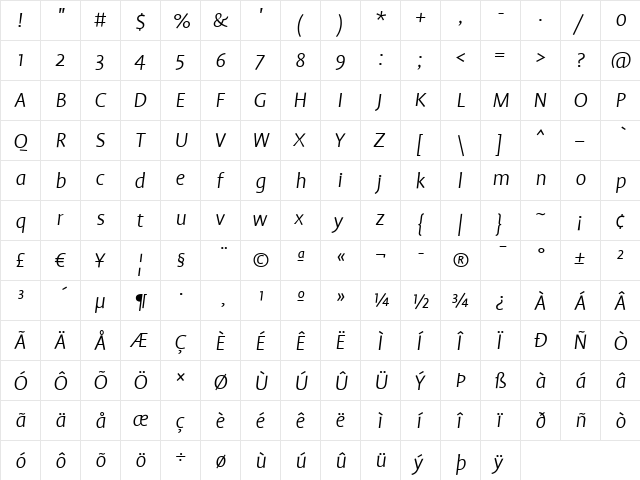
Profile Light Italic
Light Italic · by Martin Wenzel, published by FontShop International for the FontFont library. Profile is a trademark of FSI, Fonts and Software GmbH, http://www.fontfont.de  ·
Design Context for Profile Typeface
Profile takes a measured approach to typography — its balanced proportions and neutral character make it a reliable workhorse for both digital and print work. The dynamic lean of this cut emphasises speed and emphasis in any layout. Its slender proportions lend an understated elegance to any composition.
Pro Tip: Try Profile for annotation and caption copy alongside an upright companion — the contrast in angle creates a dynamic but ordered typographic system.